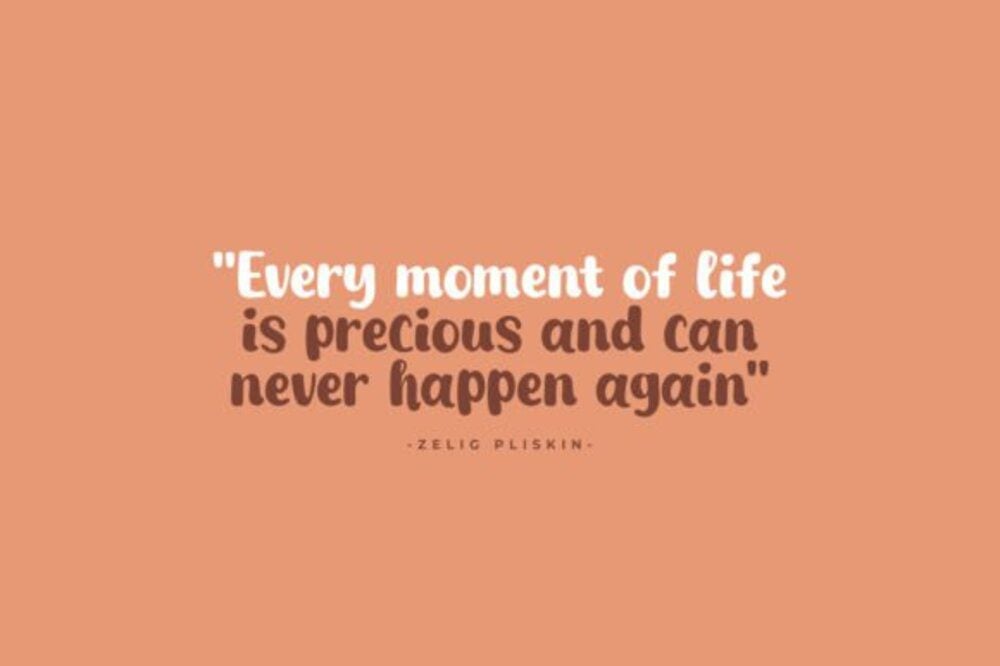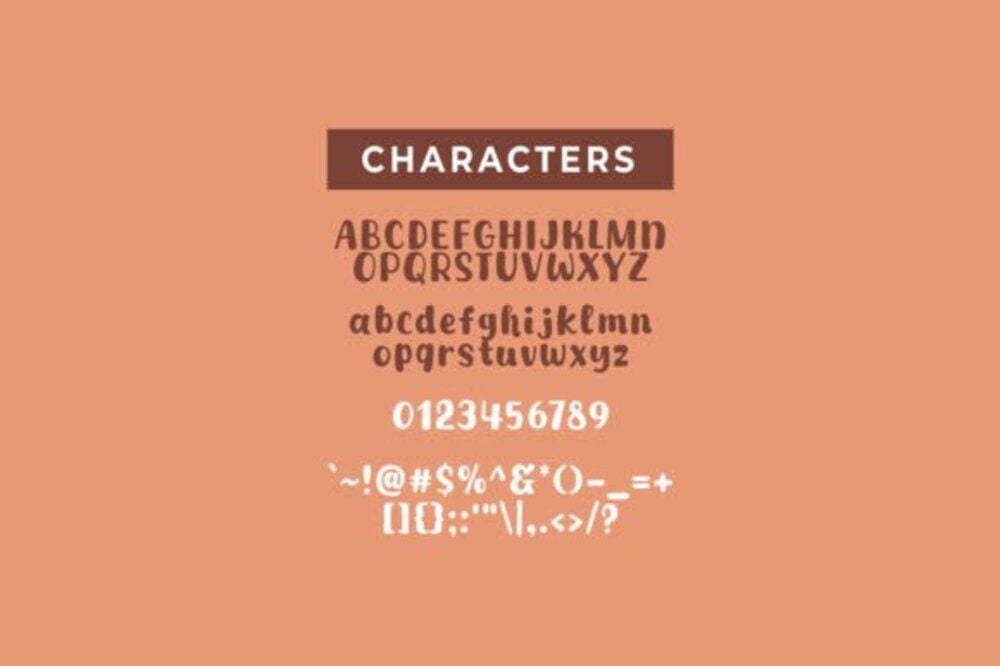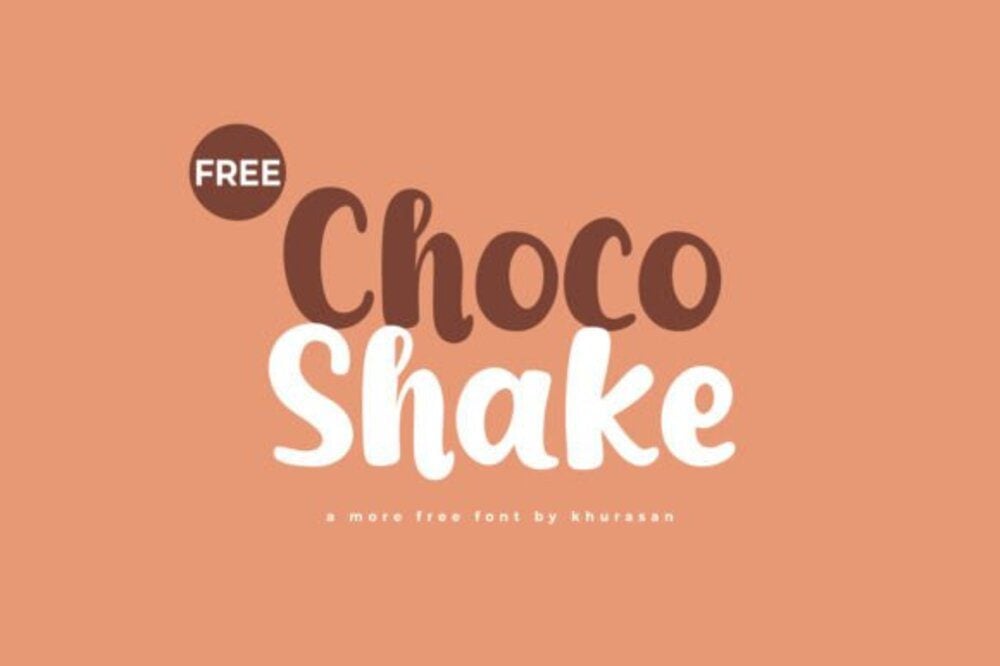
Choco Shake Font
Choco Shake is a delightful and sweet font with a playful, soft design. Its rounded, smooth letters resemble the creamy flow of a milkshake, perfect for food-related projects like dessert menus, café branding, or sweet treats promotions. The whimsical yet elegant style adds a touch of fun and warmth, making your designs feel both inviting and deliciously memorable.